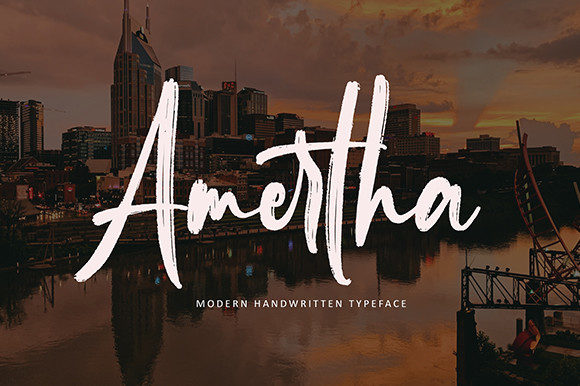
The Amertha Font: A Romantic, Brushed Script for Your Creative Projects
I’ll never forget the design struggle I faced when working on a wedding invitation project. My client wanted a font that exuded romance, elegance, and a touch of whimsy. I scoured the internet, tried countless fonts, but nothing seemed quite right. That was until I stumbled upon the Amertha font. ✨
Amertha is a brushed and relaxed script font that has become a staple in my design toolkit. Its PUA encoding makes it incredibly easy to access all the glyphs and swashes, allowing me to create stunning, romantic typography with ease.
An Honest Review of Amertha Font
- ✨ Romantic and elegant: Amertha’s brushed script style is perfect for projects that require a touch of sophistication and whimsy.
- ✅ Easy to use: PUA encoding makes accessing glyphs and swashes a breeze, even for those new to font manipulation.
- 💕 Versatile: Amertha works beautifully for a range of projects, from wedding invitations to branding and packaging.
While Amertha is an amazing font, there are a few things to keep in mind: 🤔
- ⚠️ Limited use in small sizes: Due to its brushed nature, Amertha may not be the best choice for very small font sizes or body text.
- ⚠️ Some swashes may not work well in all contexts: A few swashes might not fit perfectly in certain design scenarios, requiring some manual adjustment.
A Practical Guide to Using Amertha Font
The Story Behind Amertha Font
Amertha was designed with the intention of creating a beautiful, romantic script that captures the essence of handwritten typography. While the exact designer may not be well-known, it’s clear that a lot of love and care went into crafting this stunning font.
| What is PUA encoding, and why is it important? | PUA (Private Use Area) encoding allows for easy access to a font’s glyphs and swashes, making it simpler to use special characters. |
| Is Amertha suitable for body text? | While Amertha is beautiful, its brushed nature makes it more suitable for display text or headings rather than body text. |